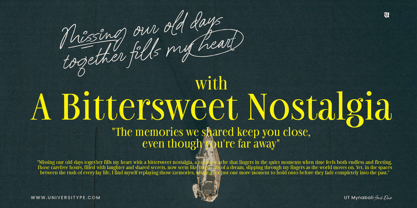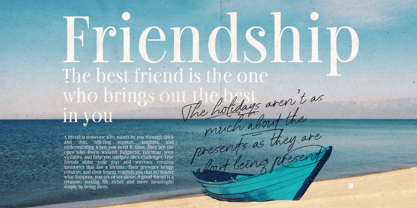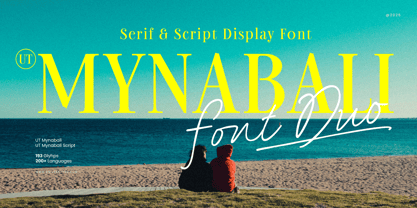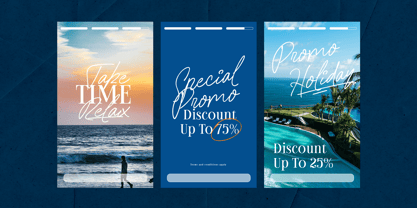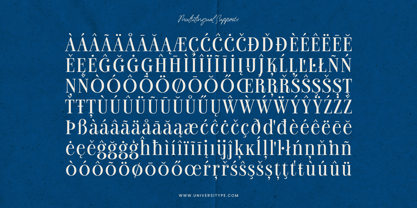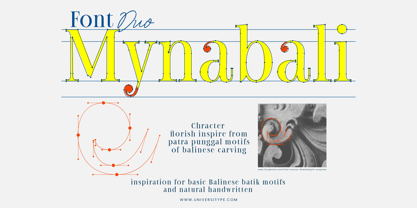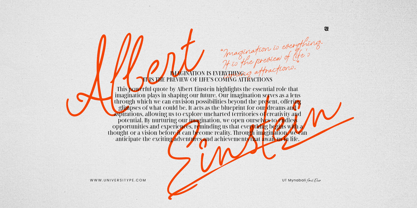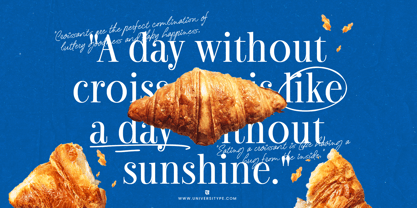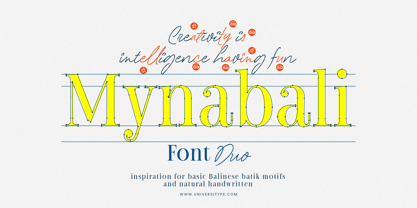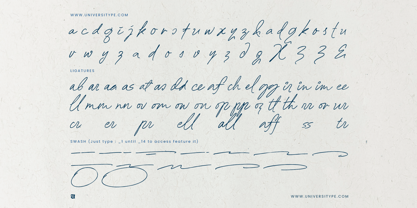
UT Mynabali
by Universitype
The UT Mynabali Font Family was designed by Muh. Aswar, Novan Arisandi and published by Universitype. UT Mynabali contains 3 styles and family package options. More about this family
UT Mynabali Font Duo is where classic elegance meets natural charm. This typeface set combines a refined serif with a fluid, expressive script, creating a perfect harmony of sophistication and warmth. Inspired by the rich artistry of Balinese culture, it brings a sense of tradition while feeling fresh and contemporary. Whether you’re designing a high-end brand, an editorial layout, or elegant invitations, UT Mynabali gives your work a distinctive and timeless voice.
Target Audience
• Designers looking for a versatile font duo that balances structure and fluidity
• Luxury brands, fashion labels, and boutique businesses
• Wedding and event planners who want a refined yet personal touch
• Editorial designers, book cover artists, and magazine creatives
• Anyone who loves type that feels both sophisticated and organic
Key Features
• Serif & Script Duo: A striking serif with sculpted details pairs beautifully with a handwritten script full of personality
• Elegant Ligatures & Stylistic Alternates: Add flair and uniqueness to your typography
• Multilingual Support: Covers a range of Latin-based languages
• Timeless & Versatile: Works seamlessly for branding, packaging, print, and digital projects
Inspiration Behind the Design
Mynabali draws from patra punggal, a Balinese carving motif known for its intricate yet harmonious details. The serif reflects the structure and grace of temple engravings, while the script captures the fluidity of handwritten artistry found in ceremonial calligraphy. It’s a blend of precision and spontaneity—designed to bring depth and character to any project.
Usage Suggestions
• Branding & Logos – Ideal for luxury, fashion, beauty, and boutique brands
• Editorial Design – Perfect for magazines, book covers, and high-end layouts
• Wedding & Event Invitations – Adds a touch of refinement and personality
• Packaging & Labels – Works beautifully on product branding, from perfumes to artisanal goods
• Social Media & Websites – Enhances visual storytelling with elegance and charm
Designers: Muh. Aswar, Novan Arisandi
Foundry: Universitype